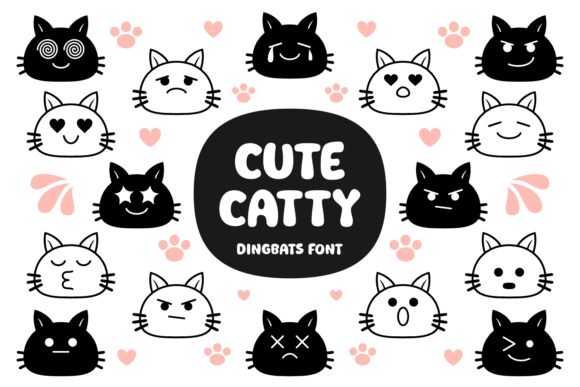
Cute Catty Font: The Purrfect Typeface for Feline Fanatics and Design Enthusiasts
Are you a designer, crafty enthusiast, or simply a cat lover looking for a unique and expressive typeface to elevate your creative projects? Look no further than the Cute Catty Font, a charming dingbats typeface that is sure to delight. This adorable font is packed with a vast array of cute cat faces, offering a comprehensive library of emotive expressions and styles to bring a touch of whimsy and fun to your designs.
What Sets Cute Catty Font Apart
The Cute Catty Font stands out from other typefaces due to its focus on adorable feline faces, providing a sheer variety and emotive range that is unmatched. The font features a complete set of characters mapped to the uppercase keys, showcasing outlined white cat faces with diverse, sweet, and playful expressions. But that’s not all – a separate, equally extensive set of solid black fill cat faces is included on the lowercase keys, offering a high-contrast look that essentially doubles the design options for users.
A Font Designed with Versatility in Mind
Whether you’re a designer looking to create engaging visual content or a crafty enthusiast seeking to add a personal touch to your projects, the Cute Catty Font is an excellent choice. The typeface is feature-rich, offering not only two distinct styles of cat faces for the alphabet keys but also a collection of supplementary dingbat elements mapped to the number keys. This means you can add even more creative flair to your designs, from cute cat-themed icons to fun and playful graphics.
Perfect for Pet Lovers and Kawaii Enthusiasts
The Cute Catty Font is a superb tool for enthusiasts of all things cute and for creators targeting pet lovers or the ‘kawaii’ aesthetic. The font’s adorable cat faces and playful expressions are sure to resonate with anyone who loves all things feline. Whether you’re creating social media graphics, blog posts, or marketing materials, this font is sure to bring a smile to your audience’s faces.
Key Features of Cute Catty Font
- Complete set of outlined white cat faces on uppercase keys
- Complete set of solid black fill cat faces on lowercase keys
- Collection of supplementary dingbat elements mapped to number keys
- High-contrast look for added visual interest
- Feature-rich typeface with two distinct styles of cat faces
Using Cute Catty Font in Your Designs
Tips and Inspiration for Designers and Crafters
To get the most out of the Cute Catty Font, try experimenting with different design elements and techniques. Here are a few tips to get you started:
- Mix and match different cat faces and expressions to create a unique and playful look
- Use the font in combination with other design elements, such as patterns and textures, to add depth and interest
- Experiment with different colors and color schemes to create a bold and eye-catching design
For inspiration, take a look at some of the amazing designs created with the Cute Catty Font. From adorable cat-themed stationery to fun and playful social media graphics, the possibilities are endless.